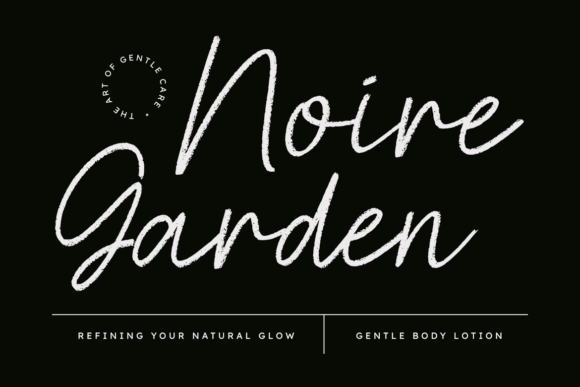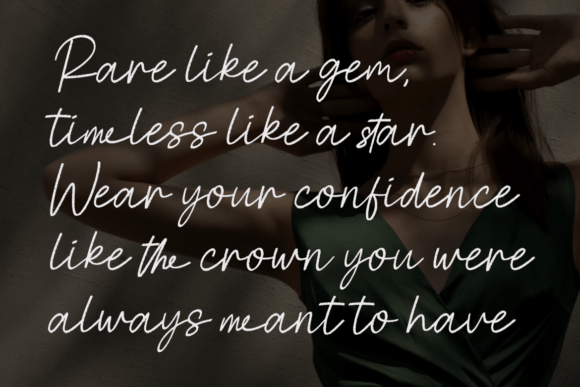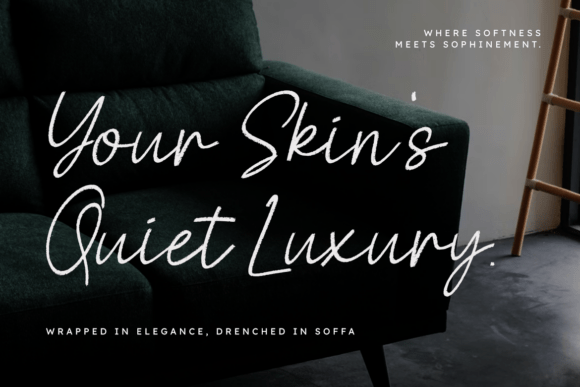
Introduction to Jasmine Signature Font
Do you ever find yourself in the midst of a creative project, searching for the perfect font to convey the essence of your vision? The struggle is real, especially when you’re aiming for a high-quality, unique look that sets your project apart. For designers, finding the right font can be a daunting task, but what if you stumbled upon a font that perfectly captures the essence of natural handwriting? Enter the Jasmine Signature Font, a stunning, hand-drawn script font that brings a touch of sophistication and elegance to your creative endeavors.
With its elegant monoline strokes and organic feel, the Jasmine Signature Font is a game-changer for designers seeking a design resource that exudes exclusivity and artisanal craftsmanship. Whether you’re working on a boutique shop header, a personalized gift card, or a wedding invitation, this font is sure to add a touch of human warmth and personality to your project.
Key Features of Jasmine Signature Font
- High-quality design resource for creative projects, ideal for logos, branding, and typography.
- Comes with a transparent background, allowing for easy customization and integration with various design elements.
- Includes a range of font sizes and styles, from 12 to 72 points, to suit various design requirements.
- Designed with a clean and elegant aesthetic, making it perfect for professional and personal branding.
- Resolution-independent, ensuring crisp and clear display on various screen sizes and devices.
Honest Review: Jasmine Signature Font
I recently came across the Jasmine Signature Font, and I must say it’s been a great addition to my design resources. The font is perfect for creating a professional and elegant look for any creative project.
- High quality: The font is crisp and clear, making it perfect for use in various design contexts.
- Transparency: The font has a transparent background, which makes it easy to use on any background without worrying about it getting lost.
- Unique style: The font has a unique style that sets it apart from other fonts in its category.
- Limited font weights: The font only comes in a few weights, which may limit its use in certain design contexts.
- Not suitable for bold text: The font may not be the best choice for bold or heavy text, as it can become difficult to read.
Overall, the Jasmine Signature Font is a solid choice for designers looking for a high-quality font that’s easy to use and versatile. It’s perfect for creating a professional and elegant look for any creative project.
Jasmine Signature Font
The Jasmine Signature Font is a high-quality design resource ideal for any creative project. Its elegant and sophisticated style makes it perfect for branding, logos, and other design elements.
Tips for Getting the Most Out of the Jasmine Signature Font
Use the font on a transparent background to create a sleek and modern look. Experiment with different font sizes and styles to create a unique design. You can also use the font in combination with other design elements, such as images and graphics.
The Jasmine Signature Font is ideal for branding, logos, business cards, and other design elements that require a high-quality, sophisticated look. It’s also perfect for creating invitations, flyers, and other marketing materials.